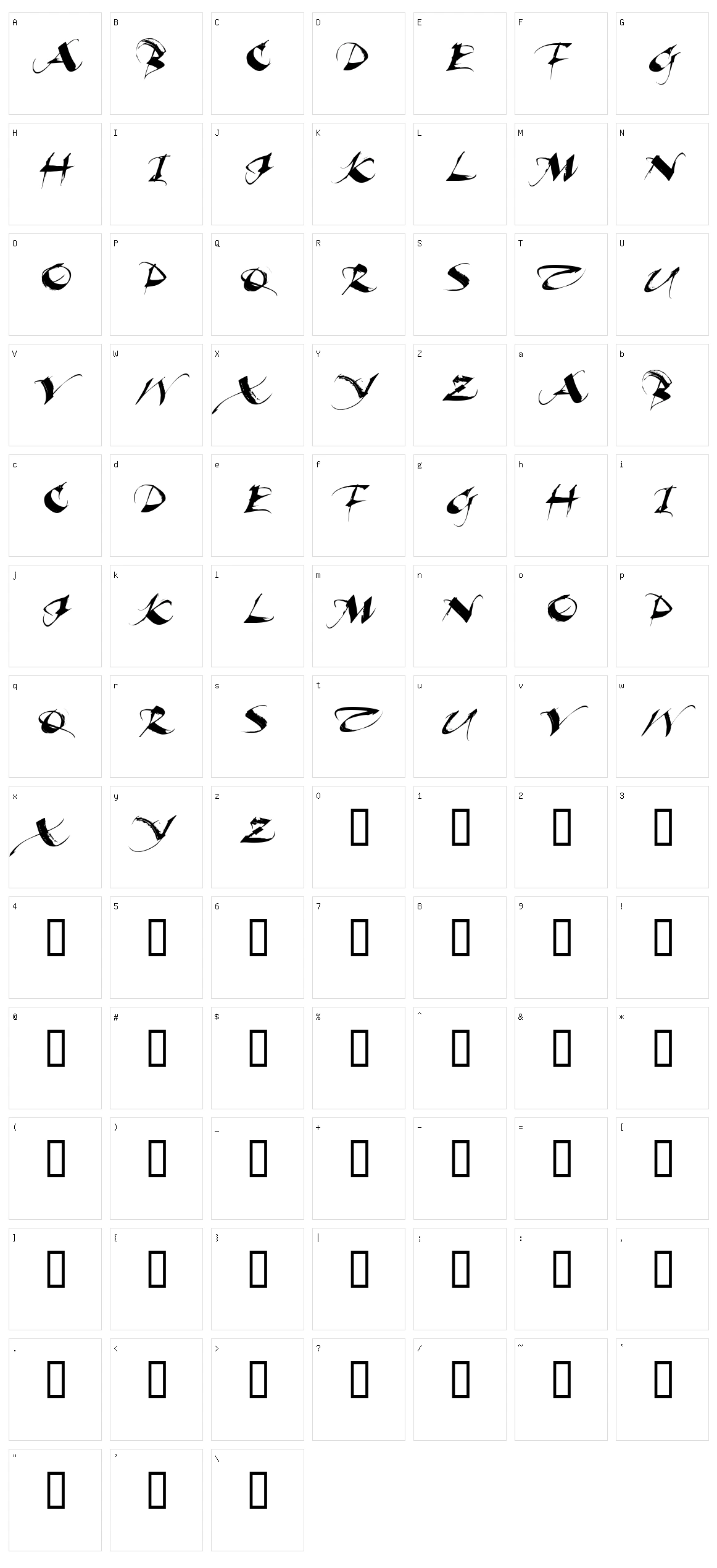
Beautiful Ink is an extremely detailed font: the larger the size you use
it at, the more detail will be revealed.
This font is intended to be used as initial capitals or for whole words in
poster and design work. It is not intended to be used for full pages of
text. Such work could put a heavy burden on your poor hard-working
printer. These characters can also be put to beautiful use in bitmap
graphic designs.